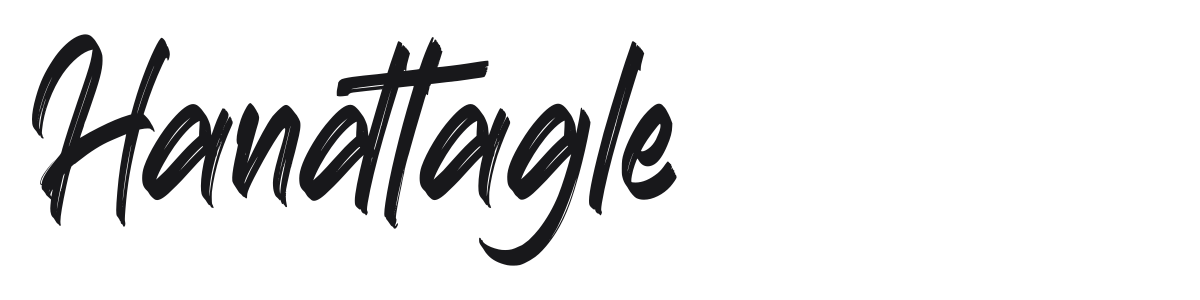
Handtagle
Handtagle is a bold brush script with heavy ink texture and a strong forward lean. Thick downstrokes break into bristle grain at the edges, giving every word a lived-in, hand-lettered quality that feels genuinely spontaneous. It carries weight on posters, packaging, and anywhere a design needs immediate personality.